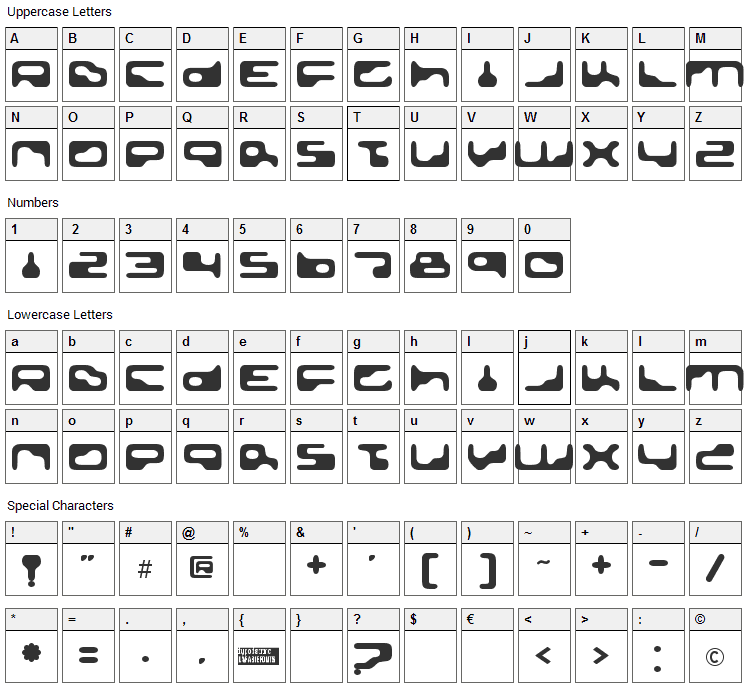
Golden Girdle Font
Golden Girdle, designed in 1997, is a wide, retro-futuristic display font inspired by magnetic ink fonts on the 1960’s. Golden Girdle has been updated with improved vertical metrics for cross-browser web performance. More languages are supported and accents have been redesigned. Spacing and kerning has been improved. More punctuation and math symbols have been added, as well as fractions and numeric ordinals.